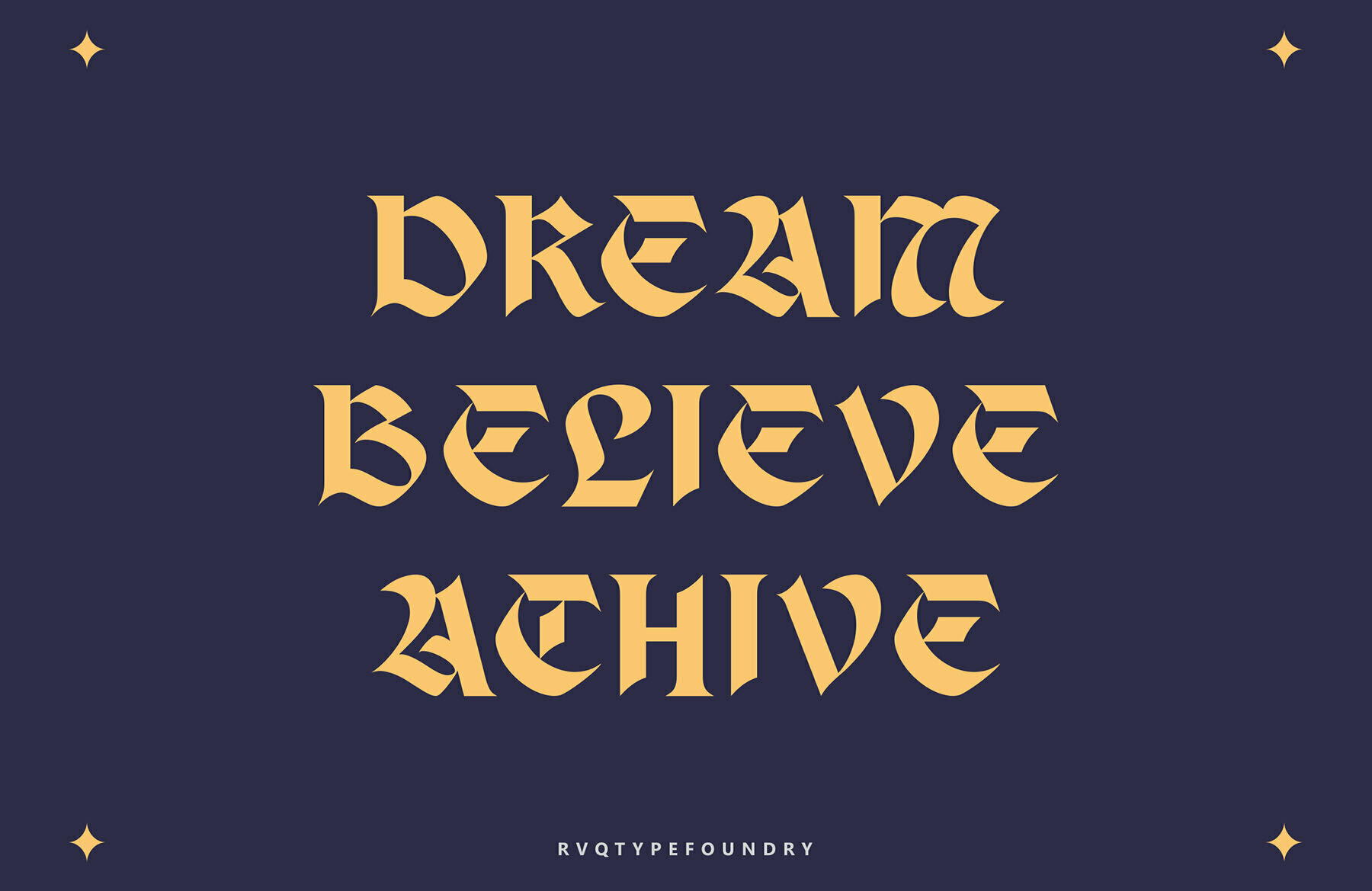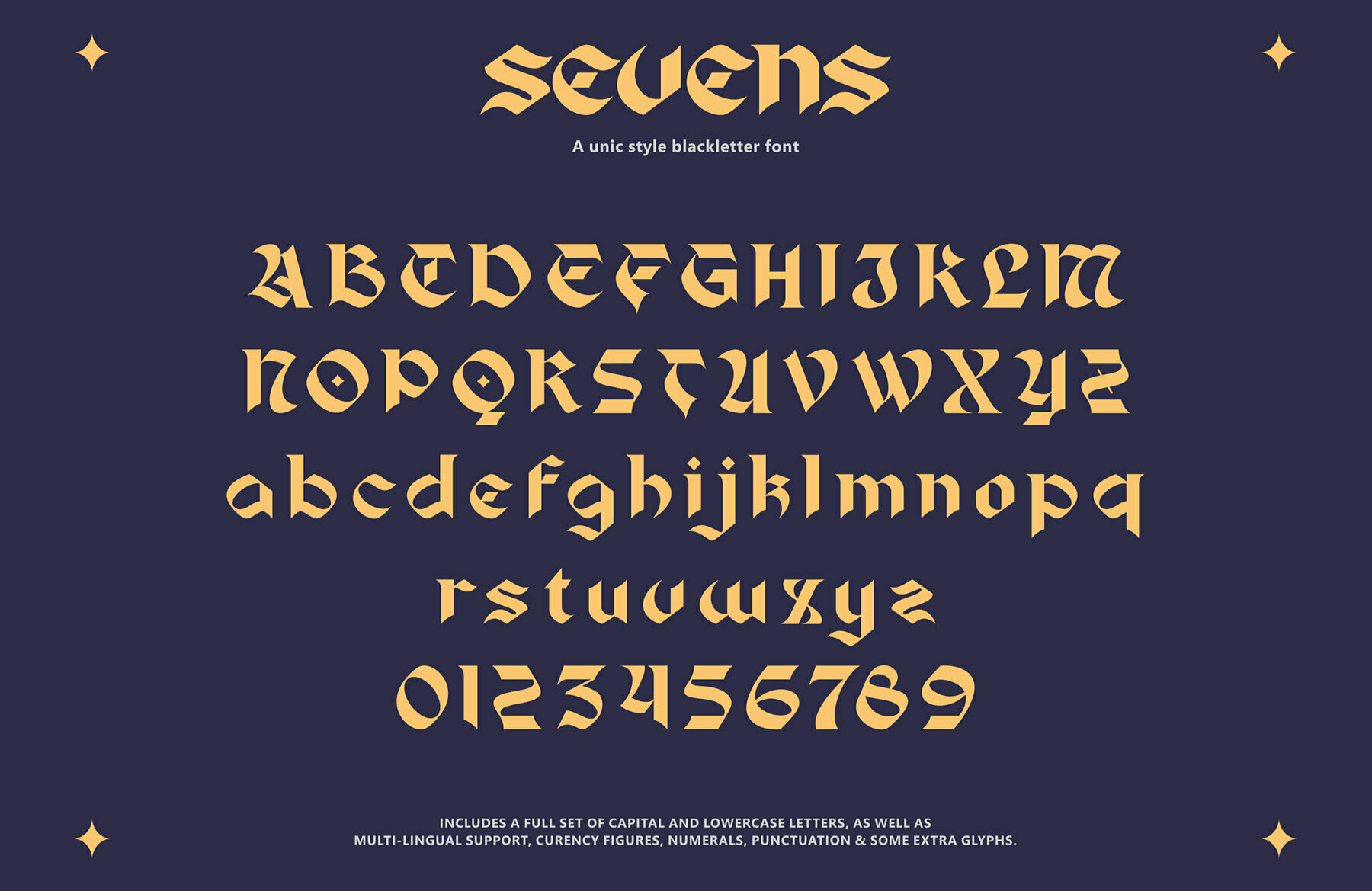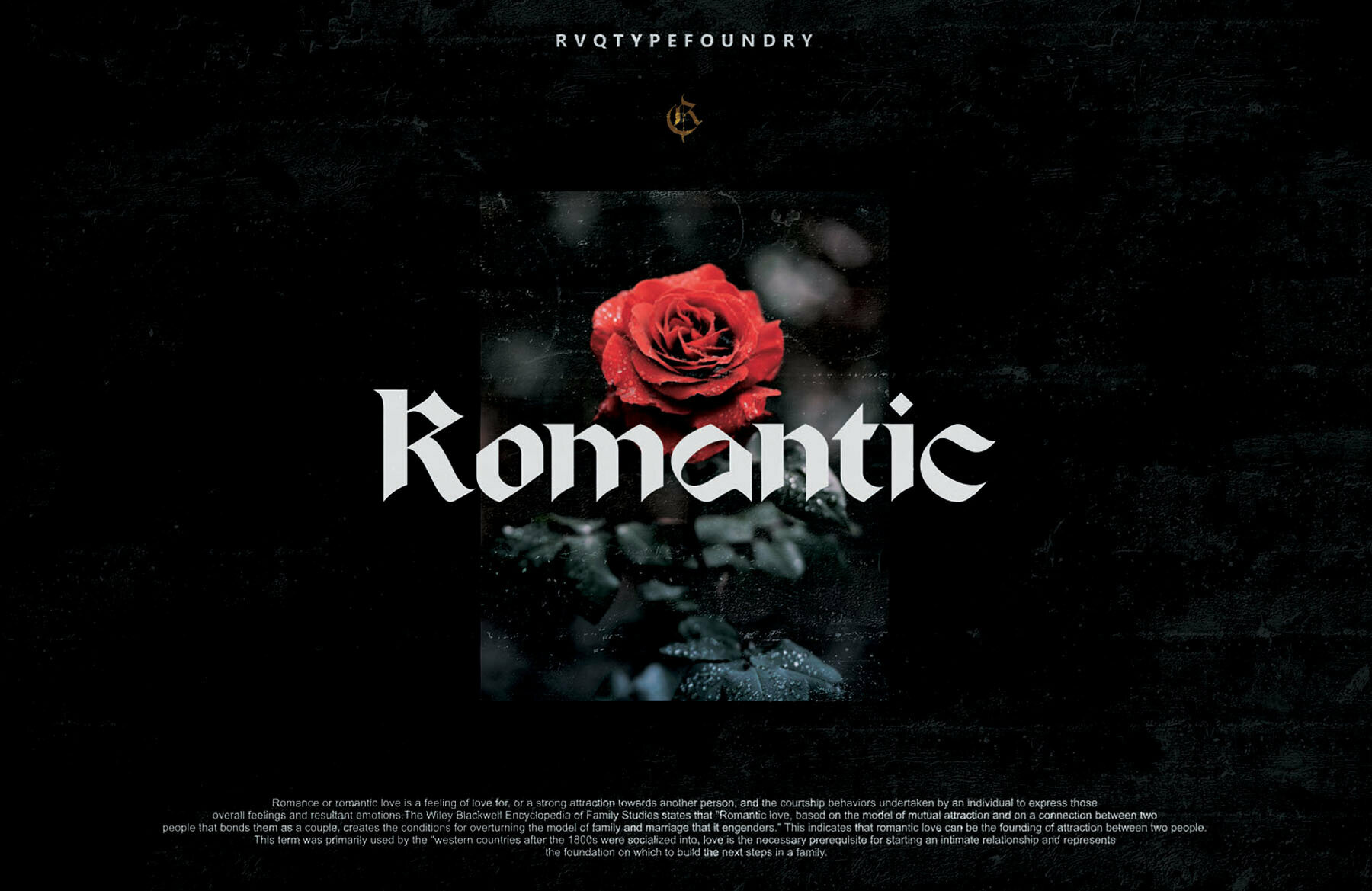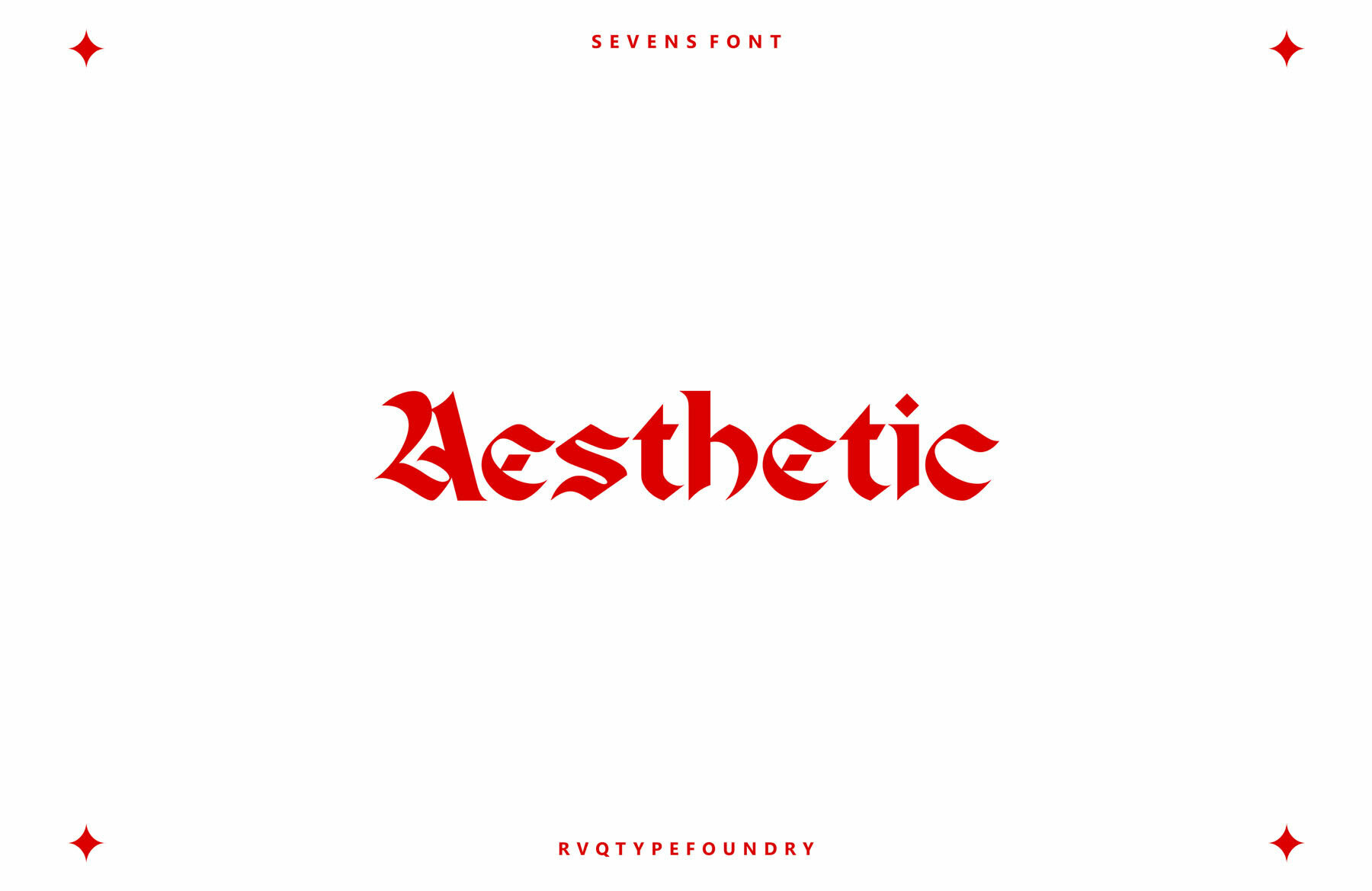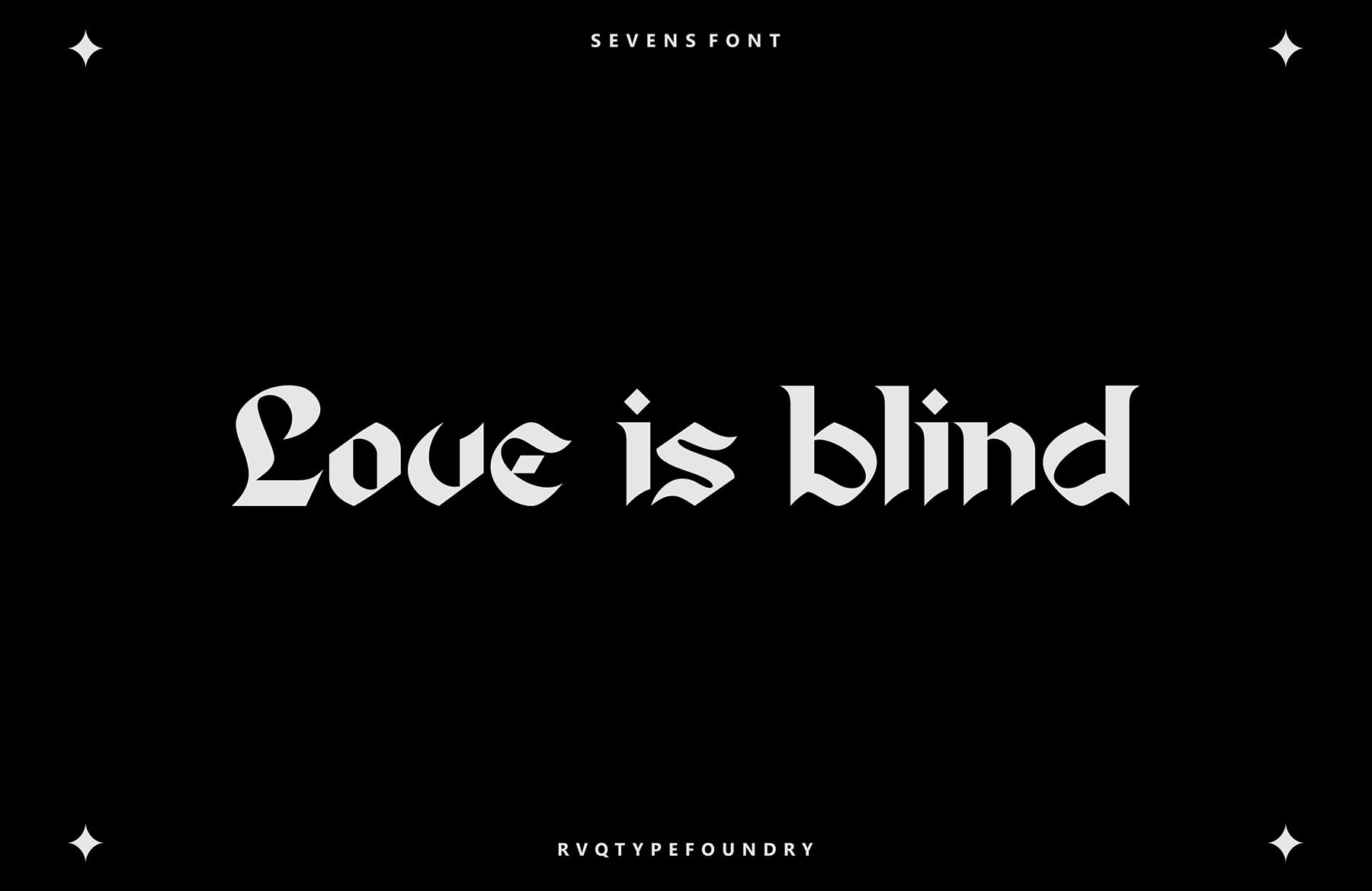
Sevens Font
The versatile Sevens font is perfect for any project that requires an artistic and creative design. With this typeface you will be able to create logos, t-shirts or anything else your heart desires!
- Character Set A-Z
- Numerals & Punctuations (OpenType Standard)
- Accents (Multilingual characters)